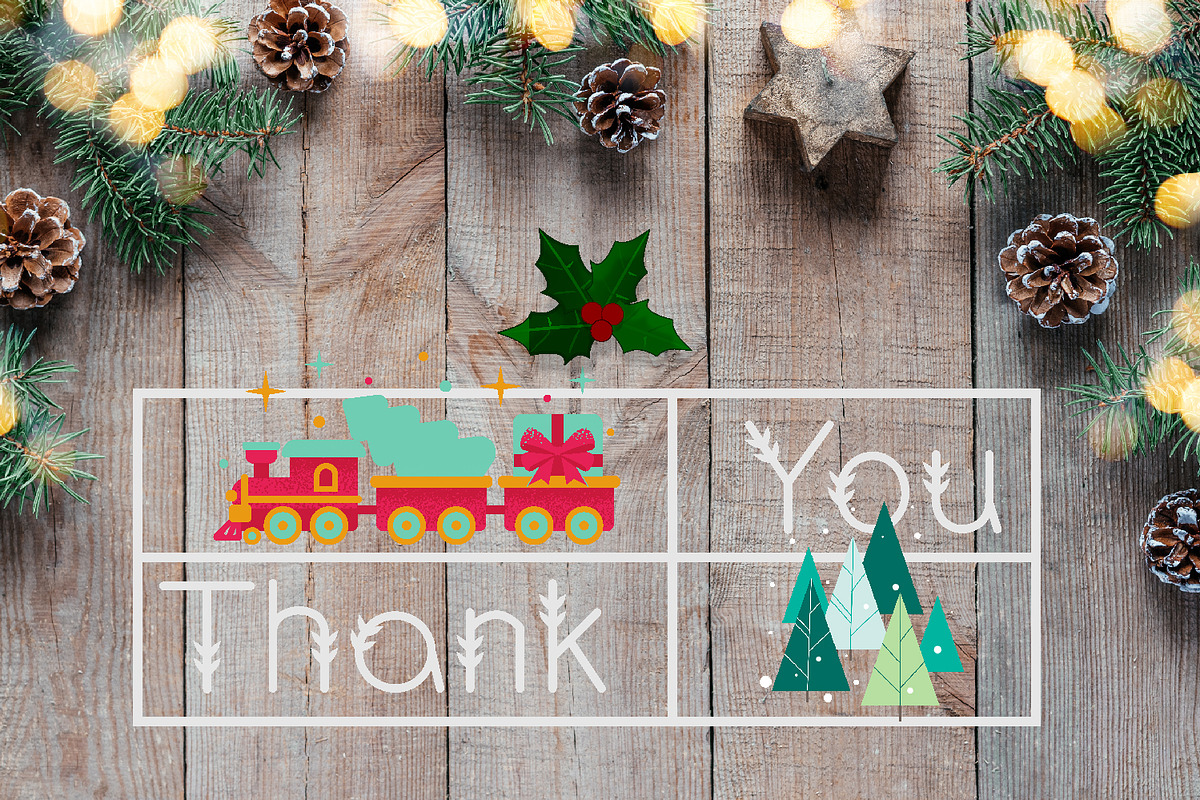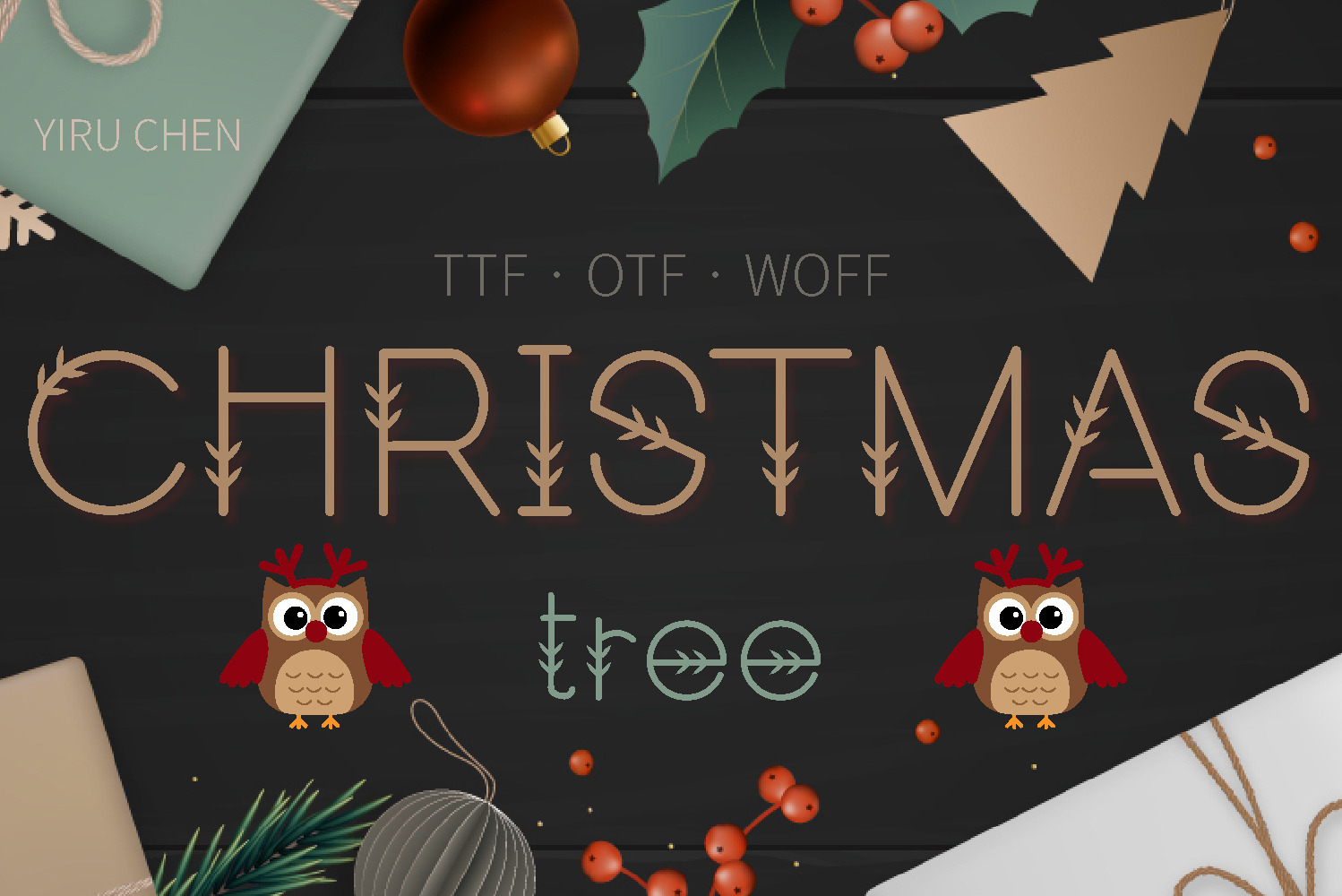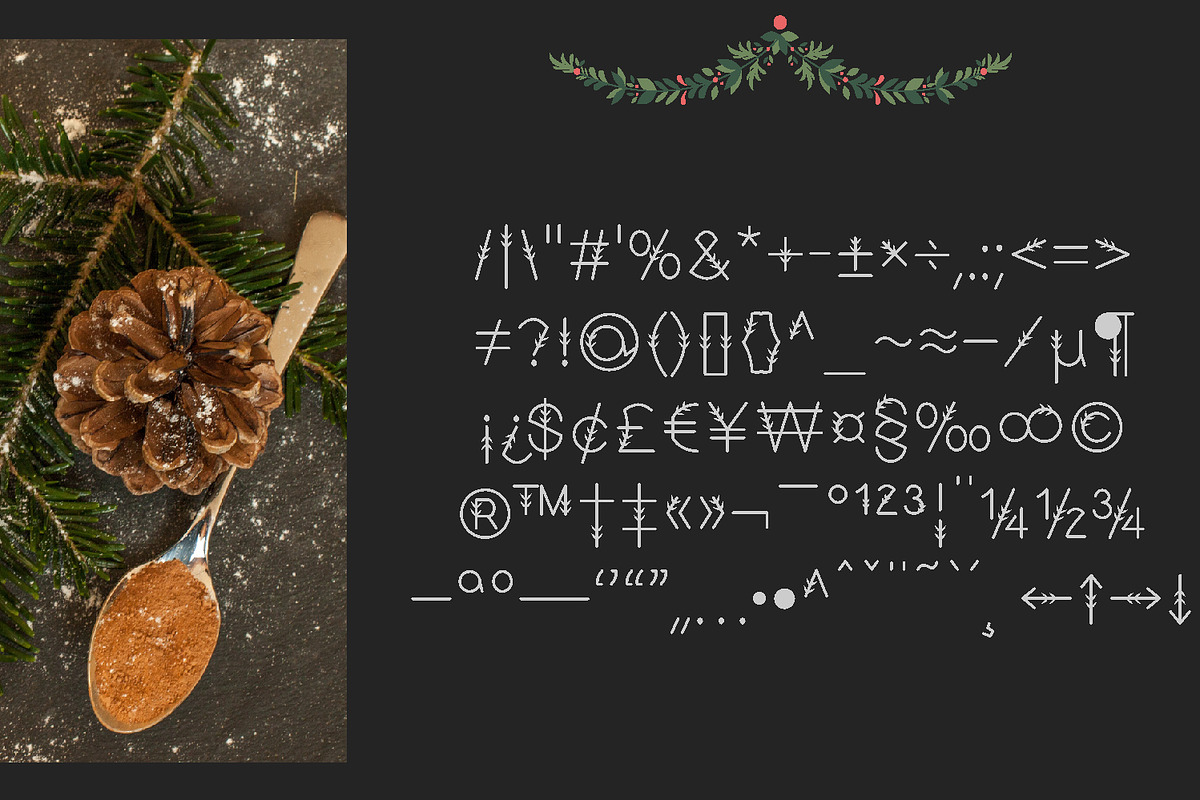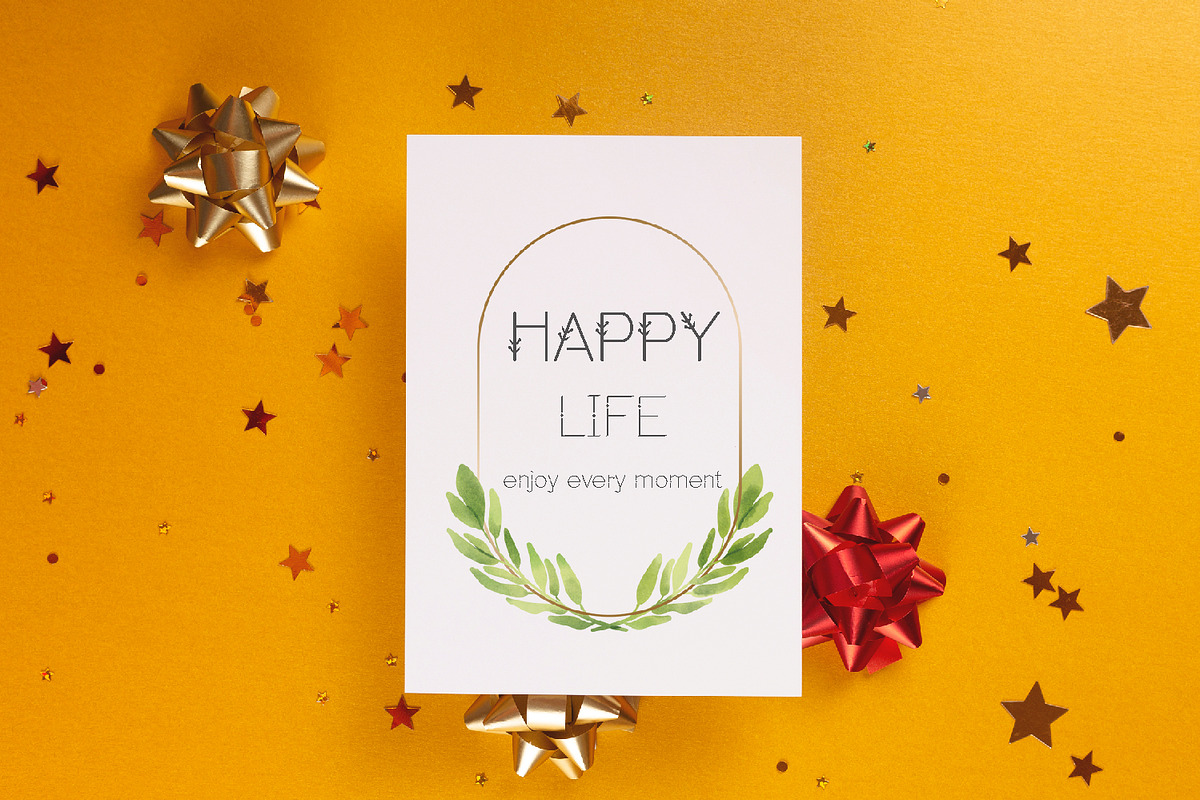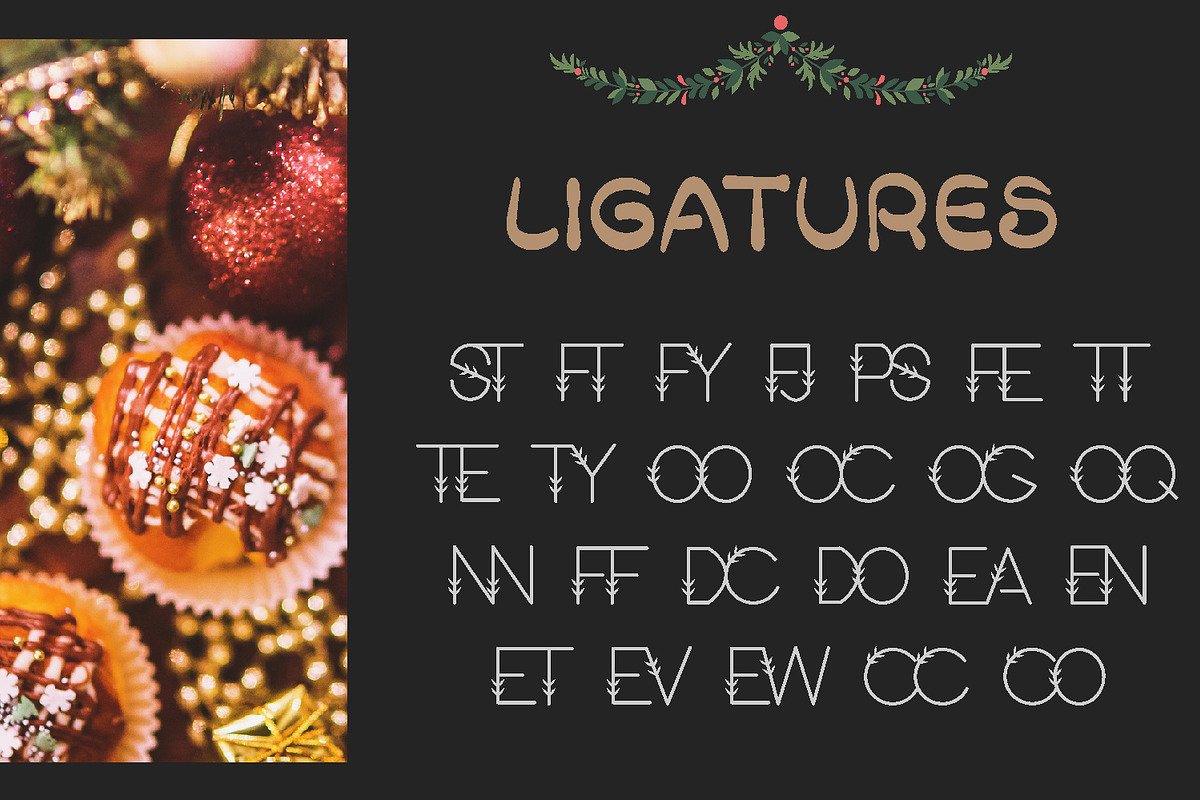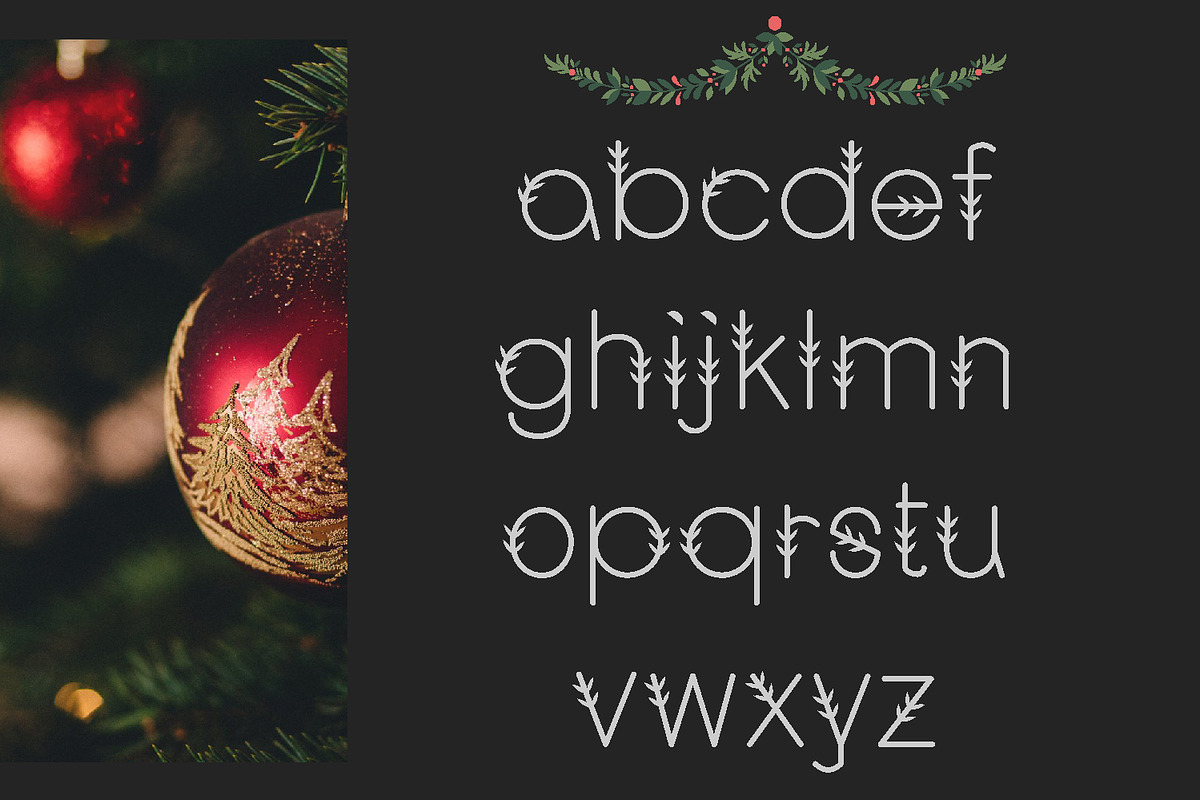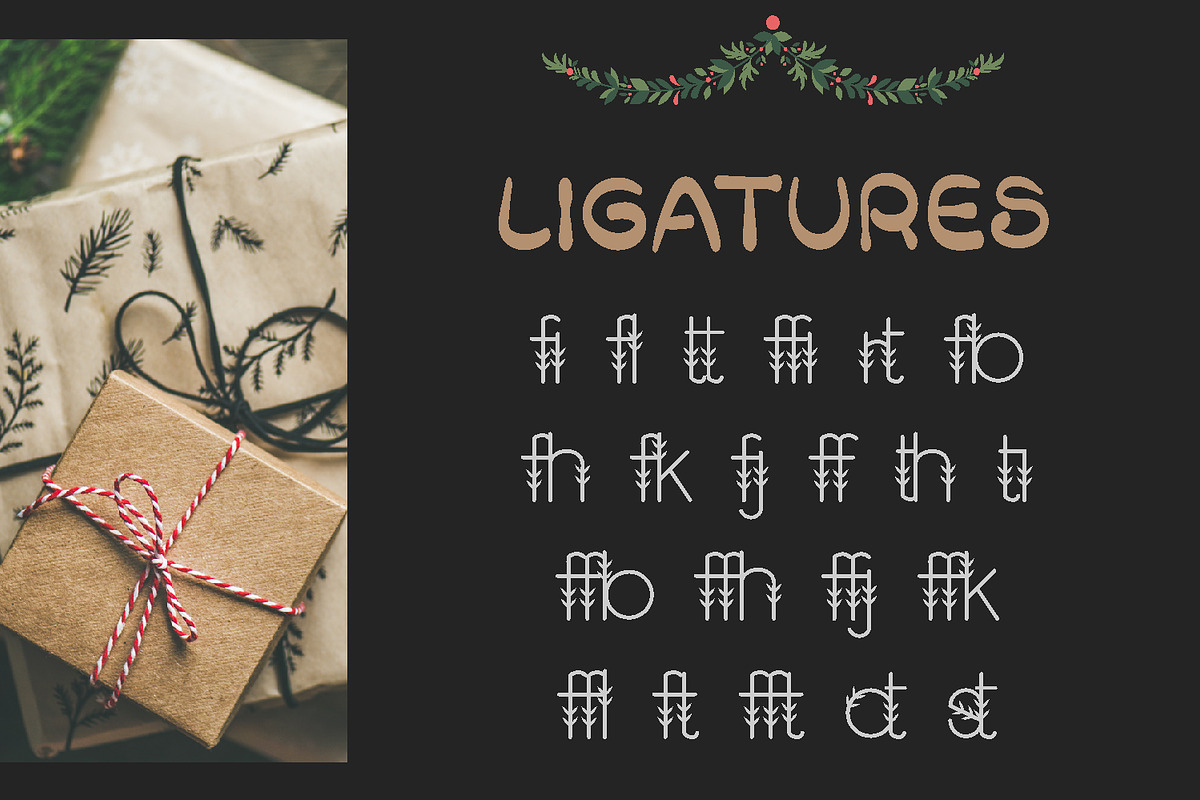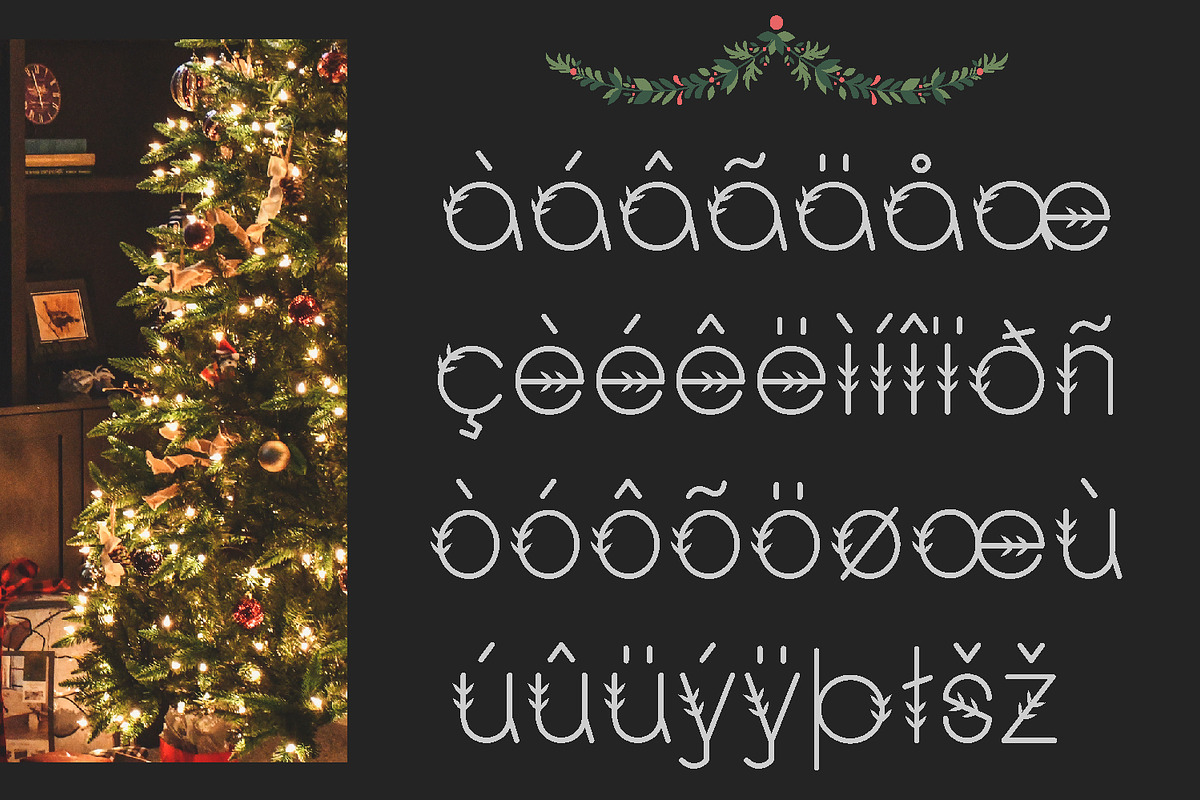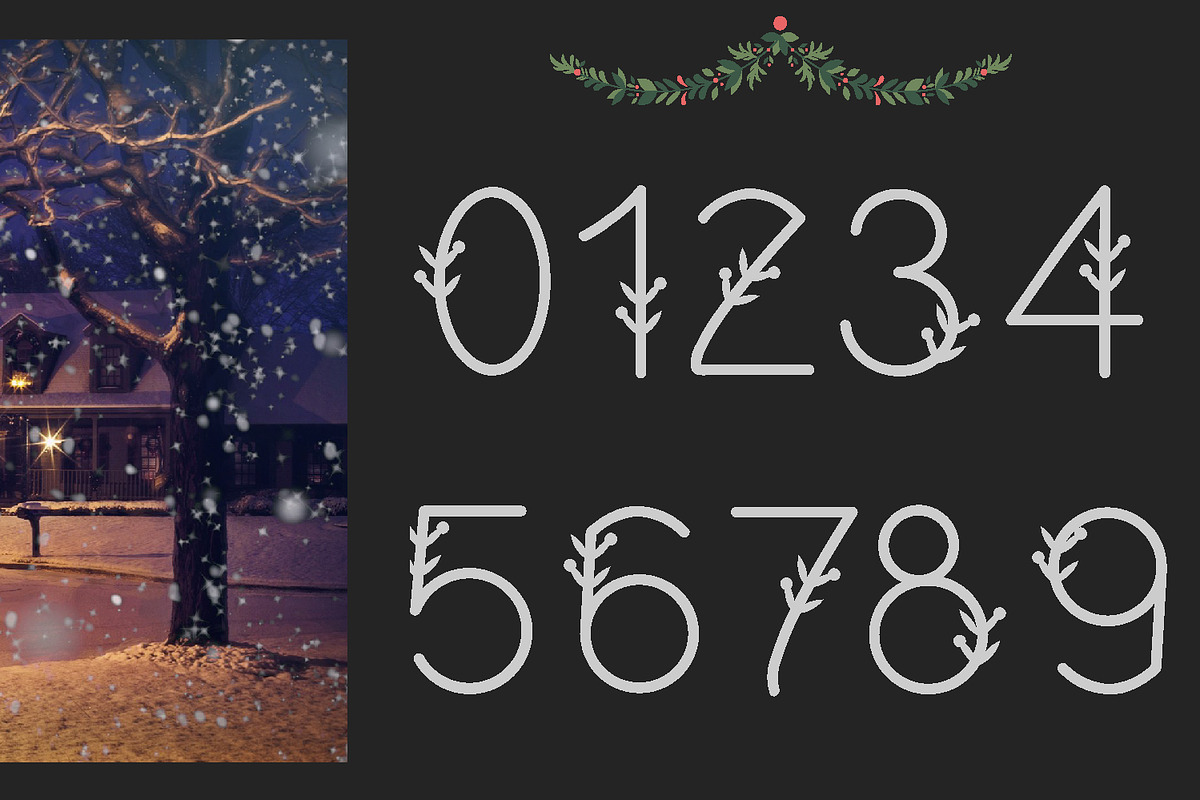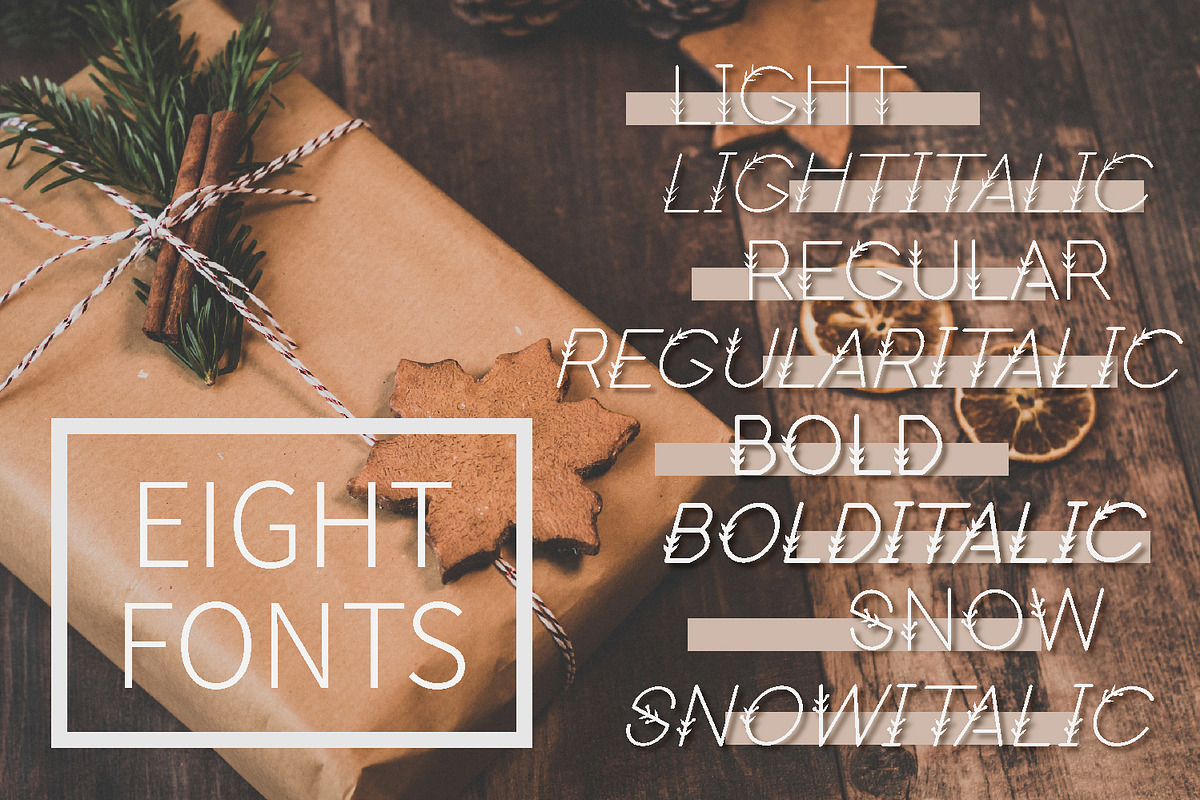
ChristmasTree Modern Sans Serif Font
Christmas Tree Modern Sans Serif Font has Eight fonts. Bold, BoldItalic, Regular, RegularItalic, Light, LightItalic, Snow and SnowItalic. Modern sans serif font with cute lines, stylish and unique. Very suitable for use in festivals and commemorative moments. This font is suitable for brand design, title, poster, packaging, clothing, banner, magazine, book design, business card design, website design, instagram, pintestest, etc. Provide wonderful and changeable design.